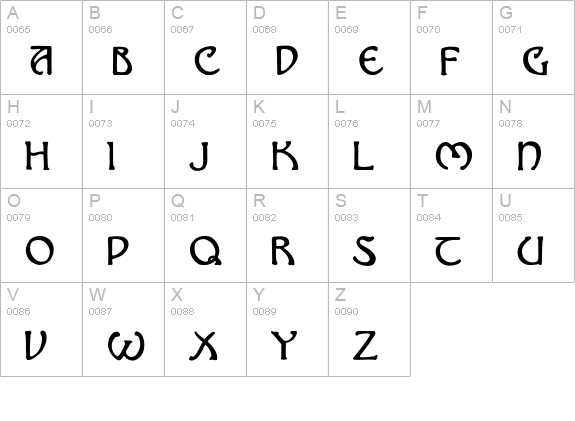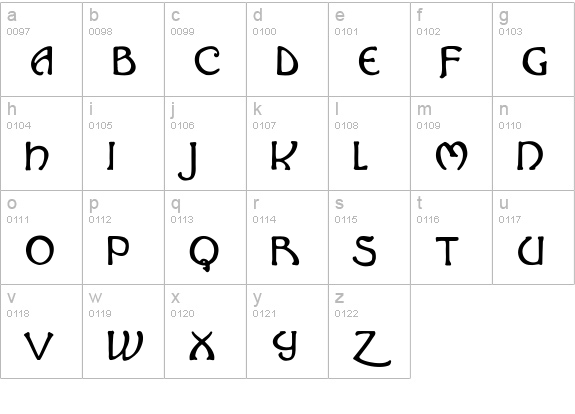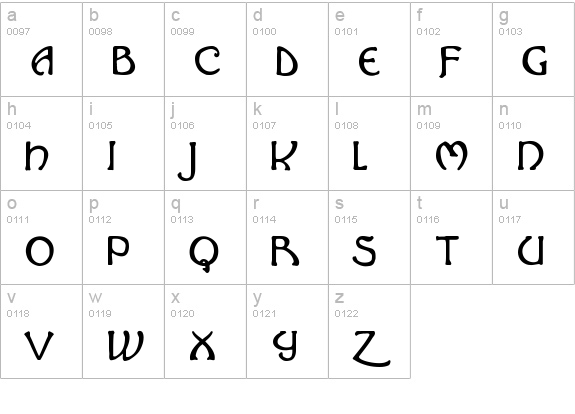
Hadley Font Details
Hadley font is a beautifully crafted typeface that exudes elegance and sophistication. Its sleek and modern design makes it perfect for a wide range of projects, from branding and logo design to editorial layouts and advertising campaigns. With its clean lines and balanced proportions, Hadley font commands attention and adds a touch of professionalism to any design. Its versatility allows it to be used in both bold and subtle ways, making it suitable for both headlines and body text. One of the standout features of Hadley font is its extensive character set, which includes a wide range of ligatures and alternates. This allows designers to create unique and personalized typography, adding a touch of individuality to their work. What sets Hadley font apart is that it is not only visually stunning, but also freely available to download at FontsMarket.com. This means that designers and typographers can access this incredible font without any cost, making it a valuable resource for both professionals and hobbyists. Whether you are working on a print project or a digital design, Hadley font is sure to elevate your work to new heights. Its timeless appeal and versatility make it a must-have in any designer's toolkit. So why wait? Head over to FontsMarket.com and download Hadley font today, and let your creativity soar.